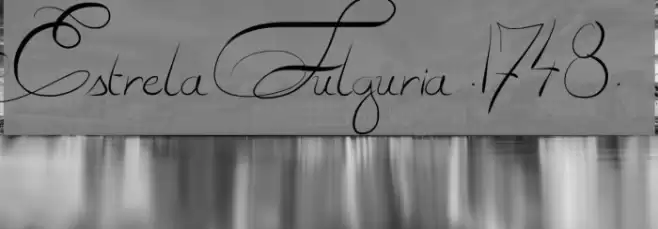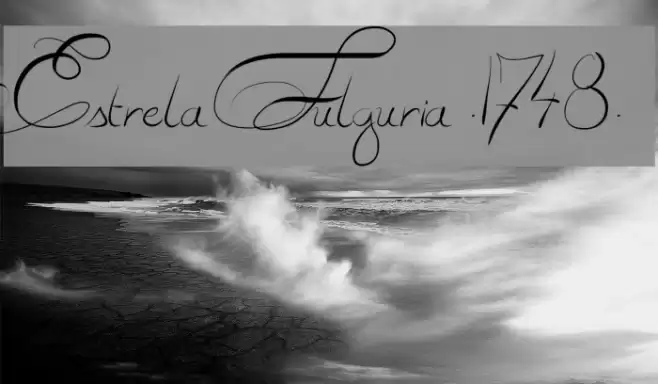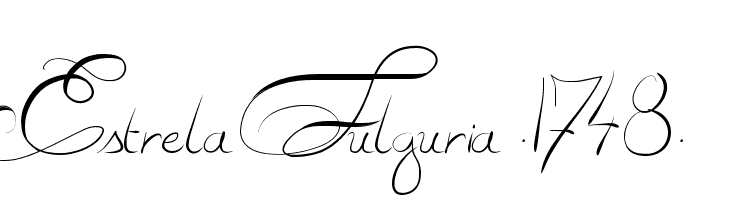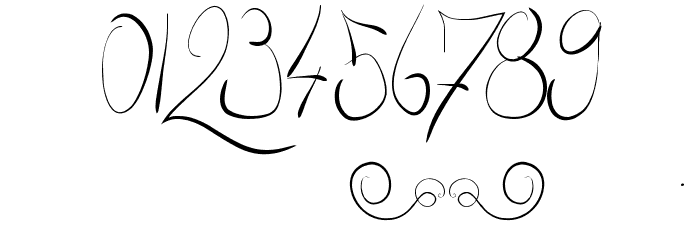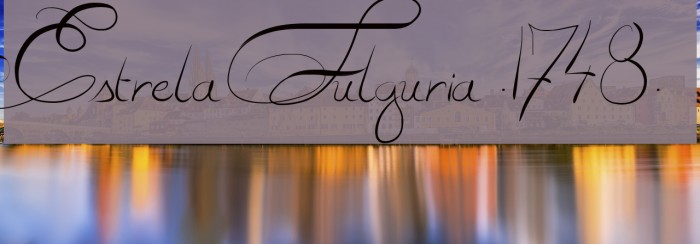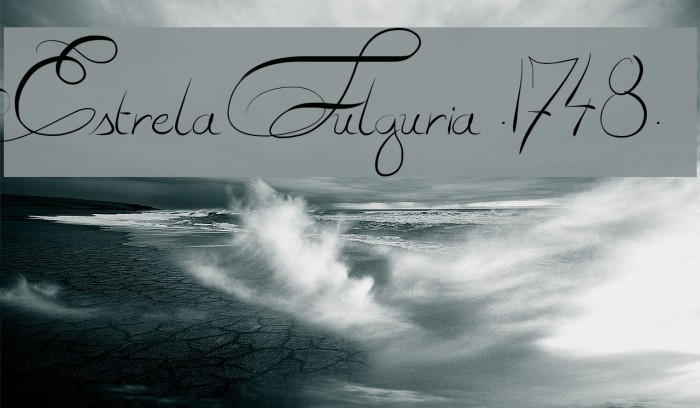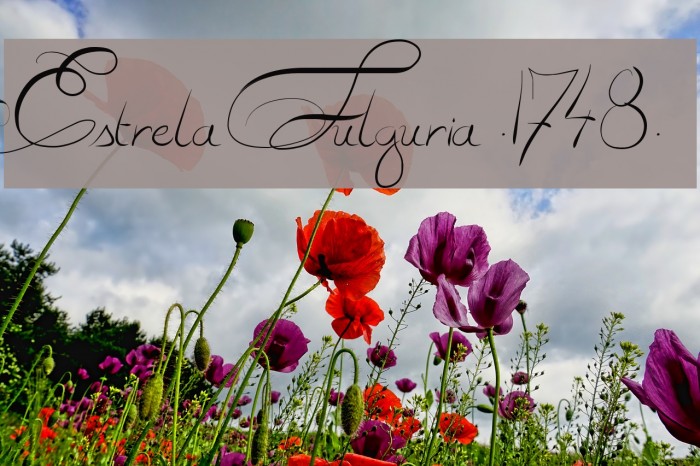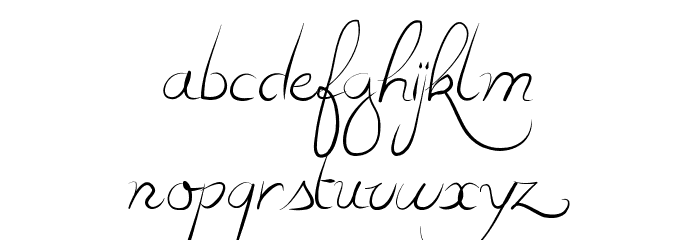
Estrela Fulguria .1748. Font
Estrela Fulguria .1748. Description
This font exudes elegance and sophistication with its intricate, flowing script style. The uppercase letters are adorned with elaborate flourishes, creating a sense of grandeur and formality. The lowercase letters maintain a graceful continuity, with smooth, sweeping curves that enhance readability while maintaining an artistic flair. The numerals are equally stylish, featuring a harmonious blend of curves and lines that complement the overall aesthetic. This font is perfect for projects that require a touch of luxury and refinement, such as wedding invitations, formal event programs, or high-end branding materials.
An elegant and sophisticated script font with intricate flourishes from Uncategorized fonts.
- Proposed Projects: Ideal for wedding invitations, formal event programs, luxury branding, and artistic designs.
- Overall Style: Classic
- Use Case: Logos, Invitations, Decorative text